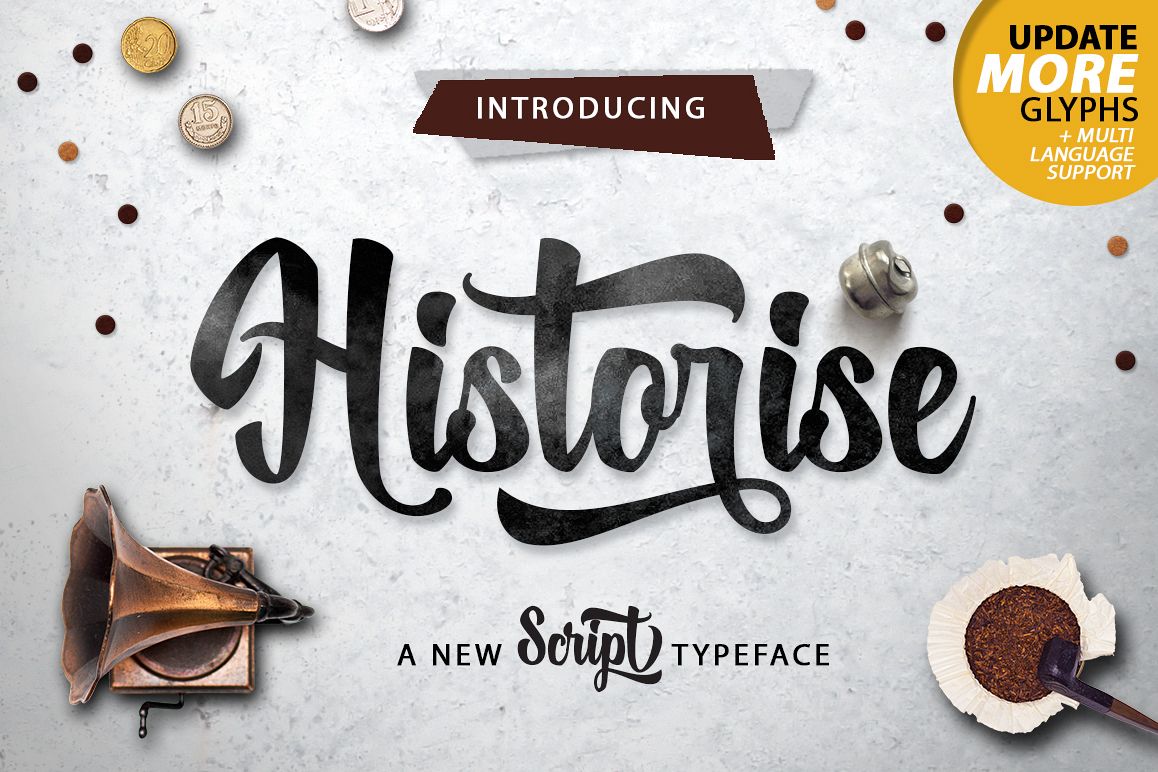
Say hello to "Historise" Made with an attractive and elegant style.
A font is very describing a gallantry but still has a value of beauty.
Historise can be used anywhere such as on greeting cards, branding materials, bussiness cards, quotes, posters, logos and more.
Historise Features :
Uppercase & Lowercase International Languange & Symbols
Support Punctuation & Number PUA Unicode Range, Standard Ligatures,
Discretionary Ligatures, Stylistic Alternates, Contextual, Swash.